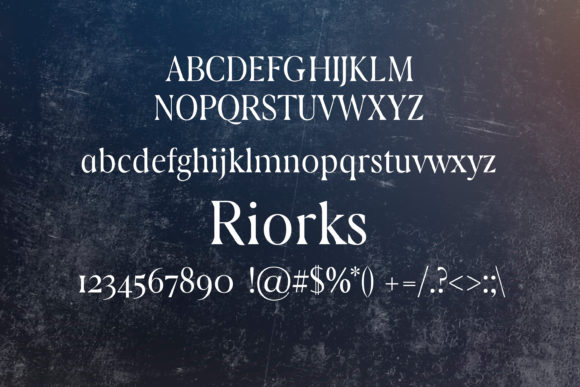
Discover the Unique Charm of Riorks Font
As a designer, you know that moment when inspiration strikes – a burst of creativity that sparks a new idea, a fresh perspective, or a unique solution. It’s a moment when the world seems to slow down, and your imagination takes center stage. For me, that moment often comes when I stumble upon a remarkable font, one that speaks to me in a way that’s both familiar and innovative. And that’s exactly what happens when you lay eyes on the Riorks Font – an incredibly strong serif font that exudes a cool, laid-back vibe.
Whether you’re working on a high-profile project or a personal creative endeavor, the Riorks Font is an invaluable resource that can elevate your design game. Its unique charm and high-quality aesthetic make it an excellent choice for designers seeking a reliable, trustworthy font that can handle even the most demanding tasks. With its transparent background and sleek design, Riorks Font is the perfect addition to your design arsenal.
Key Features of Riorks Font
- High-quality font: This font is designed with precision and care, ensuring a professional look for your design.
- Transparent background: Riorks Font features a transparent background, allowing you to easily place it over any image or color.
- Resolution: The font is designed to work at high resolutions, making it perfect for large-scale designs or print projects.
- Unique characteristics: Riorks Font features a unique, modern design that is sure to add a touch of creativity to your project.
Honest Review: Riorks Font
I recently stumbled upon the Riorks Font and was immediately drawn to its unique and creative design. As a designer, I’m always on the lookout for high-quality fonts that can elevate my projects. The Riorks Font delivers in terms of its modern and elegant aesthetic, making it a great addition to any creative project.
- ✨ Unique and creative design that stands out from the crowd
- ✨ High-quality font that’s perfect for printing or digital use
- ✨ Supports a transparent background, giving designers the flexibility they need
One of the things I love about the Riorks Font is its versatility. It’s perfect for a wide range of creative projects, from logos and branding to websites and print materials.
Overall, I’m really impressed with the Riorks Font and would definitely recommend it to designers looking for a high-quality, creative font. With its unique design and high-quality output, it’s a great addition to any design library.
Tips for Getting the Most Out of Riorks Font
To get the most out of the Riorks Font, experiment with different font sizes, colors, and styles. You can also combine it with other design elements to create a cohesive and visually appealing design.
The Riorks Font is ideal for a variety of creative projects, including logos, brochures, and social media graphics. Its high-quality design and transparent background make it a valuable resource for designers and non-designers alike.
Yes, the Riorks Font is designed to be highly versatile and can be used with a transparent background in your design. This makes it an ideal choice for creative projects that require a high level of customization and flexibility.
What makes Riorks Font a high-quality design resource?
Riorks Font is a high-quality design resource due to its clean and modern design, making it perfect for a wide range of creative projects. Its high-quality design ensures that it will look great on any background and in any application, making it a valuable addition to any designer’s toolkit.